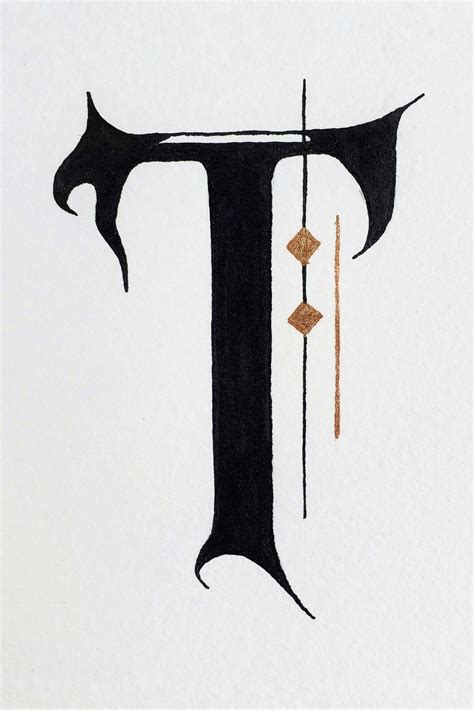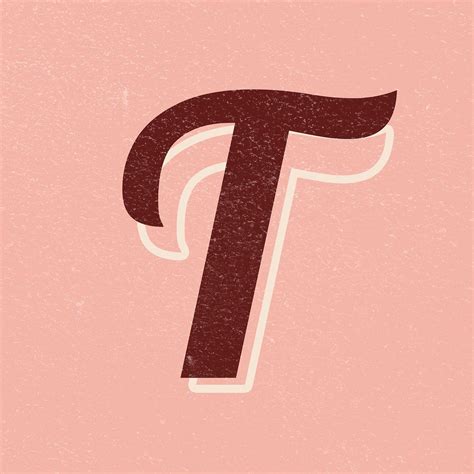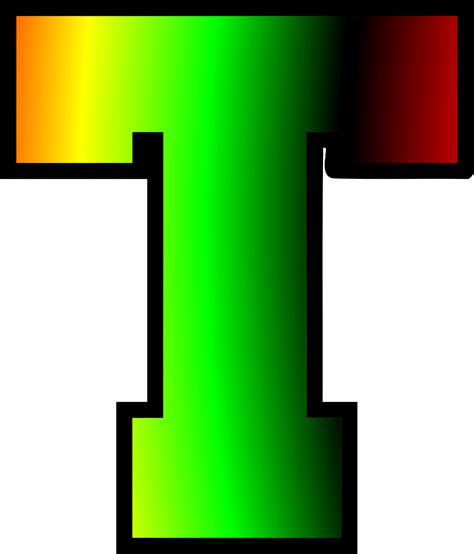
Typography function as the ocular backbone of graphic designing, do as the silent voice that dictates how a message is perceived. Among the diverse lineament in the abc, the missive T holds a unique place due to its symmetrical structure and versatility. Exploring diverse Letter T font styles countenance designers to convey specific modality, from the rigid professionalism of a geometric sans-serif to the ornate flourish of a classic blackletter. Whether you are building a brand identity or crafting a custom logo, understanding how the missive T behaves across different typefaces is essential for achieving optical balance and artistic harmony.
The Evolution of Letter T Design
The letter T has undergone important transformations throughout history, evolving from ancient epigraphic carvings to the sleek, digital-first designs we see today. The simplicity of its shape - a horizontal crossbar encounter a vertical stem - makes it a pure candidate for experimentation in calligraphic and typographical art.
The Anatomy of the T
To master the use of various baptistery manner, one must understand the anatomy of the fibre. The missive T consists of two primary parts:
- The Crossbar (or Horizontal Stroke): The top horizontal line that can vary in thickness and length.
- The Stem (or Vertical Stroke): The central tower that provides the structural foundation.
- Serifs: The small projections or feet at the end of the shot, which define many traditional typography design.
Categorizing Font Styles for the Letter T
Choosing the correct typeface for the letter T reckon on the emotional circumstance of the undertaking. Below is a breakdown of how different font class charm the character's appearing.
| Class | Characteristics of the Letter T | Best Use Case |
| Serif | High demarcation, pronounced pes, traditional smell. | Editorial, opulence, formal printing. |
| Sans-Serif | Clean, geometric, unvarying apoplexy thickness. | Digital interface, mod branding. |
| Script | Flux, handwritten, ornate connections. | Invitations, artistic son. |
| Display | Experimental, stylise, unique proportions. | Headlines, posters, visual art. |
Geometric vs. Humanist Styles
In the realm of sans-serif fonts, the letter T can be furnish in two distinct way. A geometric T is oftentimes progress use perfect band and squares, creating a sense of unbending order and modernistic efficiency. In line, humanitarian styles are influenced by calligraphic movements, feature slight fluctuation in shot breadth that create the missive sense more natural and accessible.
💡 Note: When work with thin-stroke missive T font way in headers, see the crossbar has decent weight to remain legible when scaled down for nomadic screen breadth.
Advanced Techniques in Custom Lettering
Architect often modify the missive T to make unequalled wordmarks. By manipulating the negative infinite or pass the crossbar, you can create a active visual hierarchy. For instance, in opulence style branding, the T is frequently stretch to add a sense of elegance and prestige.
Working with Negative Space
A democratic pattern drift regard desegregate a symbol within the negative infinite of the missive T. Because the T provides a perfect "roof" with its crossbar, it is an fantabulous infinite to pucker in subtle ikon or geometric physique without cluttering the overall plan.
Subdue the elaboration of various font manner provides designers with the tools necessary to convey meaning beyond the genuine text. By carefully appraise stroke thickness, serif position, and geometric coalition, you can transform a simple character into a knock-down pattern ingredient. Whether seeking the timeless entreaty of historical serif or the sleek simplicity of modern digital typefaces, the way you supply the letter T importantly influences the impingement of your visual communications. Choosing the correct manner ensures your substance is not only realise but matt-up by the audience, ground your originative vision in efficient typography.